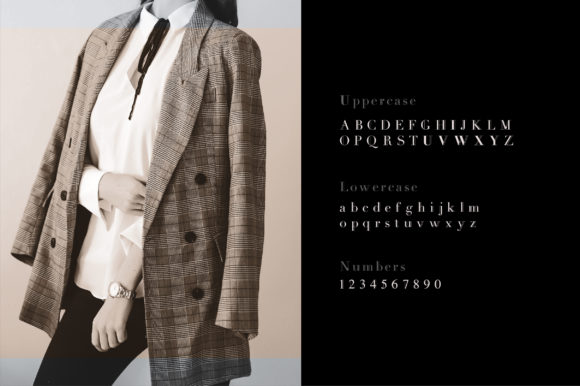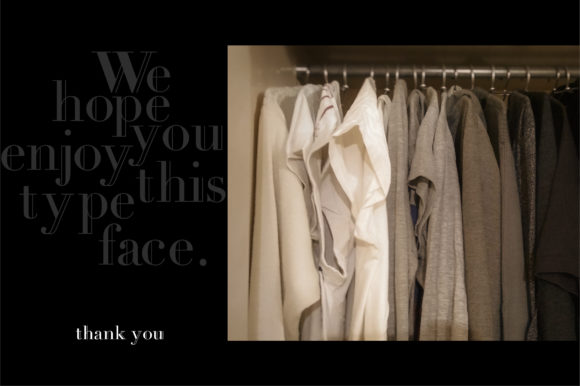
Introduction to Mivarno Font
Imagine you’re browsing through a fashion magazine, and you come across a beautifully designed spread. The typography is elegant, sophisticated, and perfectly complements the visuals. You can’t help but feel a sense of awe and appreciation for the designer’s work. For many of us, typography is a crucial aspect of our creative projects, and having the right font can make all the difference. That’s where the Mivarno Font comes in – a high-quality serif font that’s perfect for adding a touch of elegance to your designs.
As a designer, you know how valuable a great font can be. It’s not just about aesthetics; it’s about conveying a message and creating an emotional connection with your audience. With the Mivarno Font, you’ll have access to a wide range of styles and options that can be used for everything from branding to social media posts. And the best part? It’s a free download, making it an essential design resource for any creative project.
Key Features of Mivarno Font
- High-quality design resource ideal for creative projects requiring a unique touch
- Includes a range of characters and glyphs, making it suitable for both personal and professional use
- Unique, modern design aesthetic that sets it apart from other fonts in its class
- Perfect for designers, artists, and creatives seeking a high-quality, free design resource for their projects
Honest Review: Mivarno Font
I recently stumbled upon the Mivarno Font, a high-quality design resource that caught my attention. As a designer, I’m always on the lookout for unique and versatile fonts to enhance my creative projects.
Here are some things that work well with the Mivarno Font:
- Its sleek and modern design makes it perfect for minimalist projects ✨
- The font may not be suitable for projects that require a bold or dramatic look ⚠️
- The limited character set may not be sufficient for extensive text-based projects ⚠️
Overall, the Mivarno Font is a solid addition to any design library. While it may have some limitations, its versatility and high-quality design make it a great resource for designers working on creative projects.
Getting the Most Out of Mivarno Font
To get the most out of the Mivarno Font, use it in conjunction with a transparent background to create visually appealing designs. Experiment with different font sizes, colors, and combinations to add depth and interest to your creative project.
Common Use Cases for Mivarno Font
The Mivarno Font is ideal for use in a variety of creative projects, including:
- Graphic design and branding
- Typography-based art and design